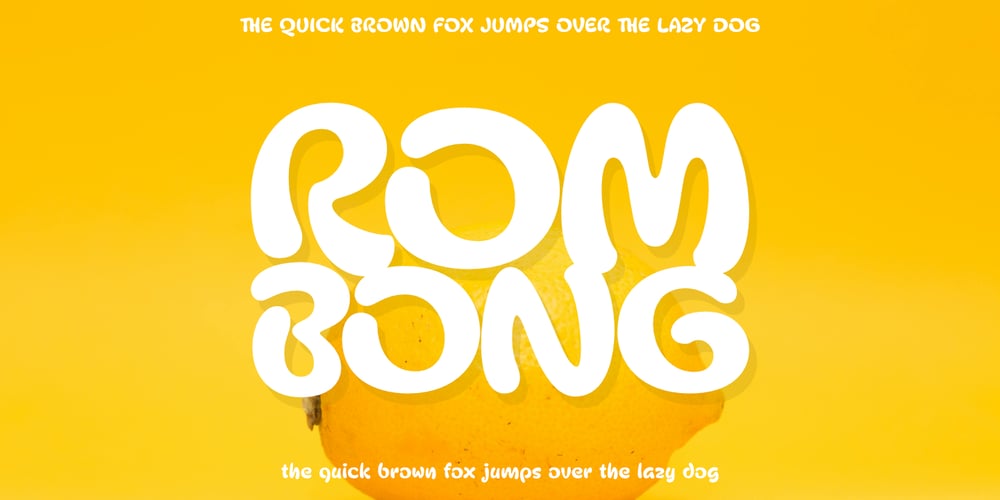
Rombong
Rombong font
Rombong Font Family was designed by Muhammad Hastian and published by Hazztype. Rombong contains 1 styles and family package options. Rombong is an experimental typeface that embodies a harmonious blend of fluidity and structure. The font features rounded edges that soften the overall appearance, giving it a friendly and approachable feel. Each letter is designed with a flowy, almost calligraphic style, which adds a sense of movement and dynamism to the text. Despite its organic curves, Rombong maintains a strong sense of order through its stencil-like design, where certain sections of each letter are deliberately disconnected, creating a unique and eye-catching effect. This contrast between the soft curves and the precise, stencil cuts makes Rombong a versatile choice for modern, creative projects. Whether used in branding, packaging, or editorial design, Rombong’s playful yet sophisticated character is sure to leave a lasting impression.